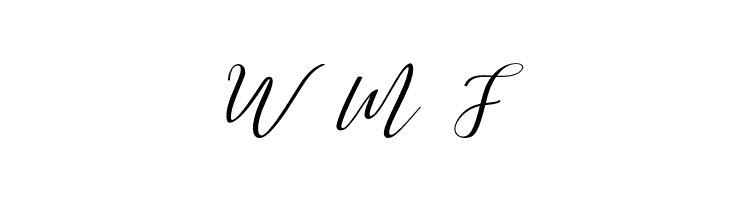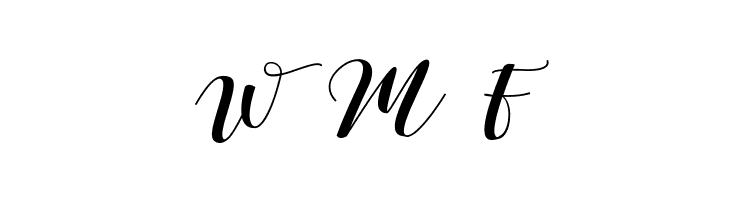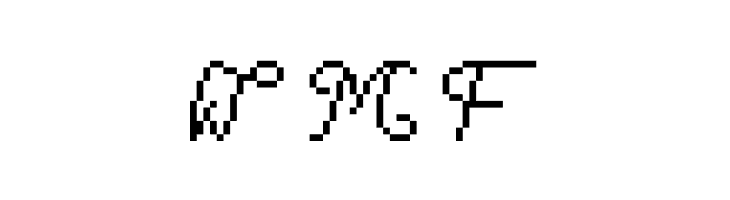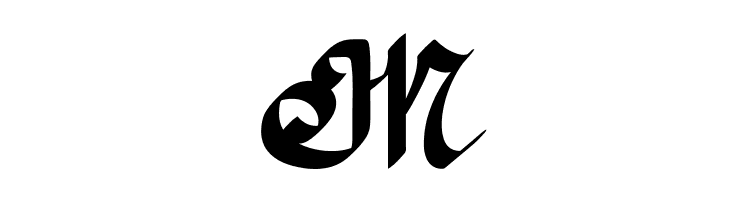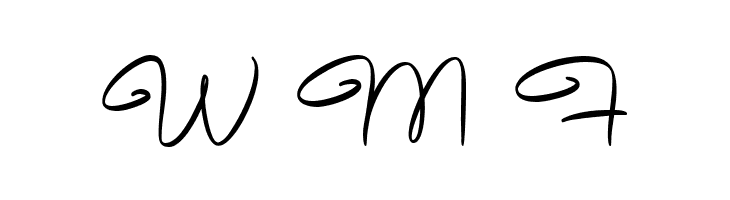
An elegant, flowing script font with ornate uppercase and readable lowercase letters.
An elegant, flowing script font with ornate uppercase and smooth lowercase letters.
A whimsical, decorative font with antler-like embellishments on uppercase letters.
A whimsical, bold font with antler-like embellishments on uppercase letters.
A decorative font with curly uppercase letters and clean lowercase characters.
A bold, calligraphic font with ornate uppercase and flowing lowercase letters.
A flowing, elegant script font with bold, sweeping uppercase and smooth, slanted lowercase letters.
An elegant script font with flowing, cursive strokes and ornate uppercase letters.
A cursive font with elegant, flowing uppercase letters and casual, handwritten lowercase letters.
A festive, decorative font with cursive uppercase and bold script lowercase, perfect for holiday themes.